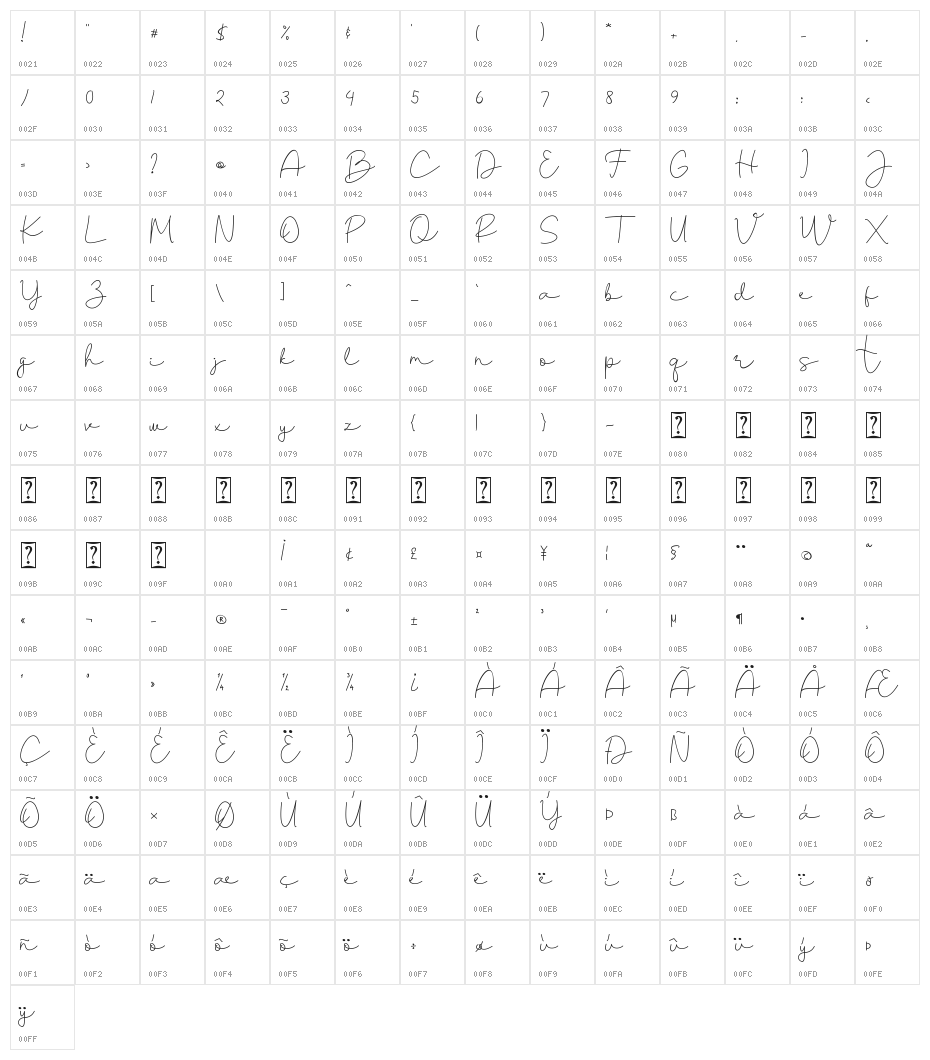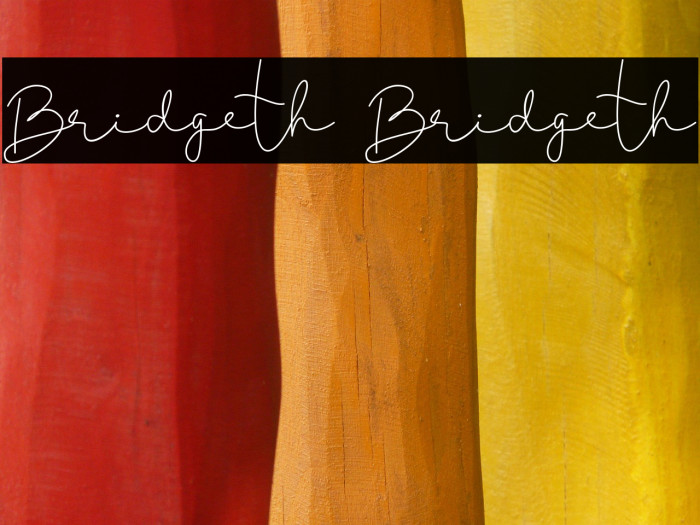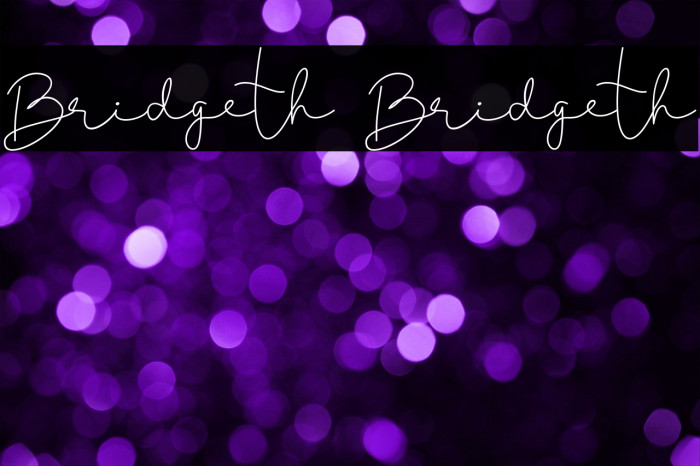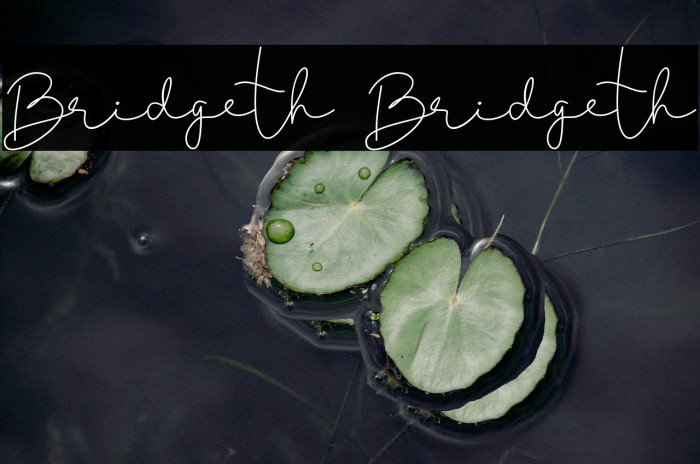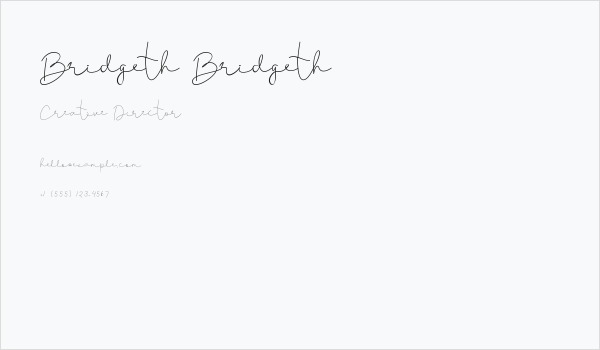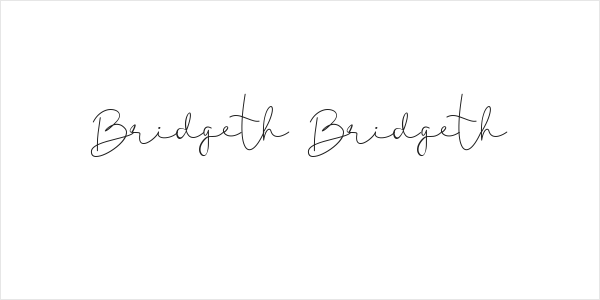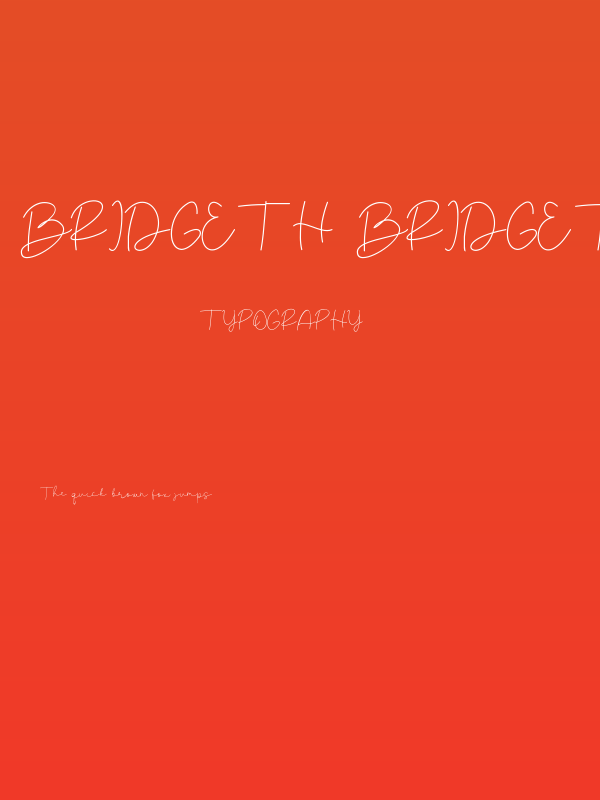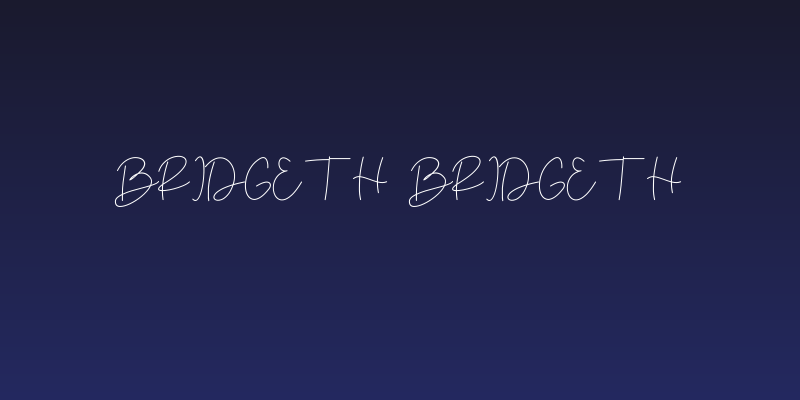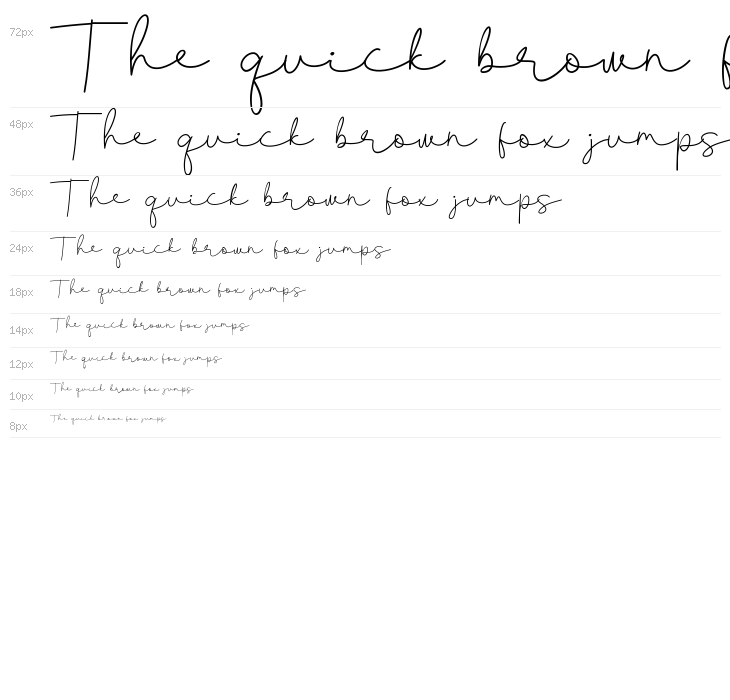
Bridgeth Font
Bridgeth Description
This font features a delicate, flowing script style that mimics elegant handwriting. The characters are connected in a smooth, continuous line, giving it a personal and artistic touch. The uppercase letters maintain a consistent height and are slightly larger than the lowercase, which have a charming, casual flair. Numbers and special characters are designed to match the fluidity of the letters, ensuring a cohesive look. The overall appearance is airy and light, making it suitable for projects that require a touch of sophistication and warmth.
| Overall Style | Elegant, Handwritten |
| Proposed Projects | Ideal for wedding invitations, personal branding, greeting cards, and elegant stationery. |